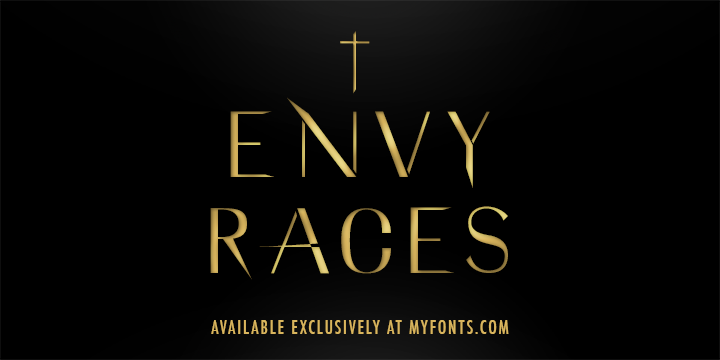
• Envy Races Gold
Envy Races is an elegant contemporary typeface based on sharp clean lines.
Its alluring, sophisticated look is inspired by high fashion. It has a gothic presence, a distinctive simplicity of the letterforms with the spiked angles and subtle contrasting thick and thin lines.
Envy Races is a display font and can be used for editorial and print design.